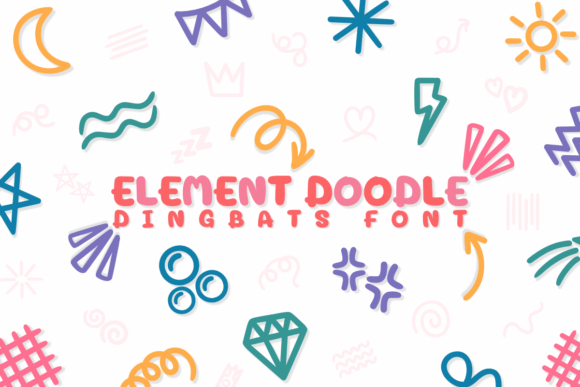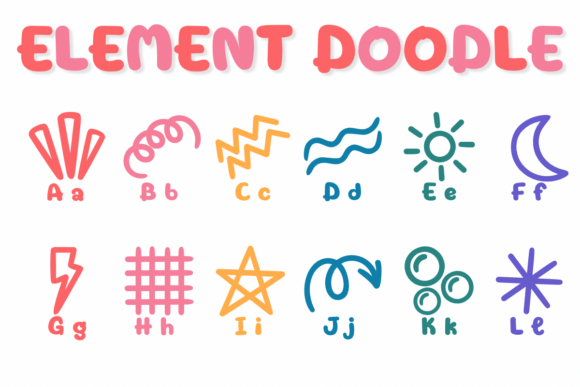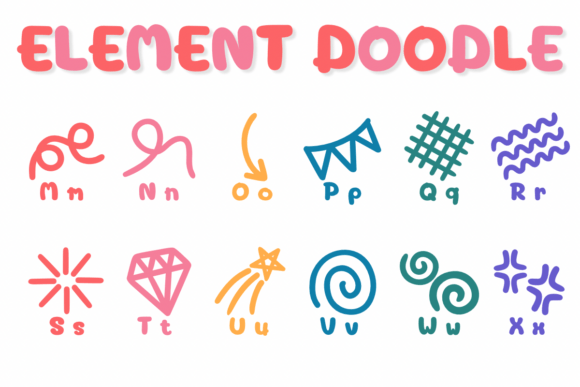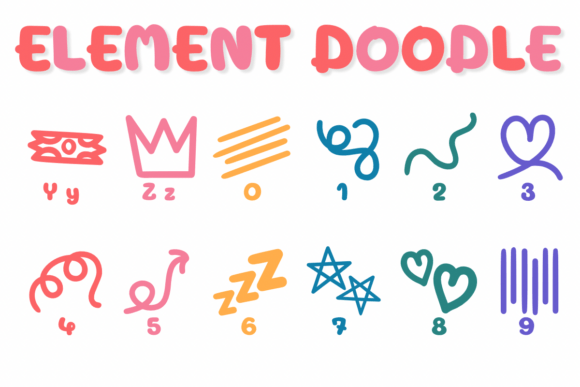
Element Doodle Font
About the Element Doodle Font
Add a touch of class to your work with the Element Doodle Font, a truly exceptional typeface. Element Doodle is a dingbats font with an abstract theme. This font can enhance your creative projects such as wedding invitations, DIY, crafts, decorations, logos, and many other creative ideas.
Element Doodle’s playful, abstract nature makes it ideal for headlines, short text blocks on branding materials, and decorative elements in packaging or posters. It excels in projects requiring a whimsical, hand-drawn feel, adding visual interest without overwhelming the design. However, its low readability makes it unsuitable for body text or UI elements requiring extended reading.
Pairing Element Doodle with a clean sans-serif like Open Sans for body copy creates a strong contrast, balancing the font’s informality. For a more sophisticated look, consider a classic serif such as Garamond or a geometric sans-serif like Futura for a modern, controlled aesthetic. These pairings provide visual structure and enhance readability.
The font’s overall personality is best described as whimsical and slightly quirky, making it perfect for brands targeting a younger audience or those focused on creativity, crafts, and personalized design.